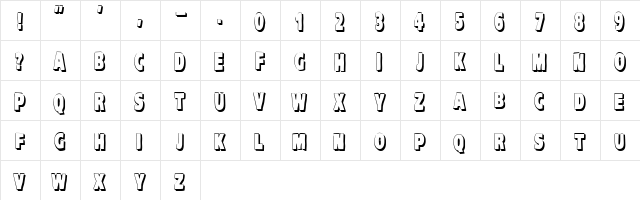
VTC-KomikaHeadLinerTwo Shadow
| Foundry | WolfBainx - Larry E. Yerkes, Vigilante Typeface Corporation. |
| Designer | WolfBainx - Larry E. Yerkes, Vigilante Typeface Corporation. |
Design Context for VTC-KomikaHeadLinerTwo Typeface
VTC-KomikaHeadLinerTwo is built around its visual character rather than neutral utility — its distinctive forms are designed to make an impression at display sizes.
Font Pairing: Pair with a clean neutral sans-serif for body copy to let VTC-KomikaHeadLinerTwo's character lead without overwhelming the composition.
Pro Tip: Treat VTC-KomikaHeadLinerTwo as the centrepiece of your typographic hierarchy. One strong heading set in a decorative face can carry an entire layout.